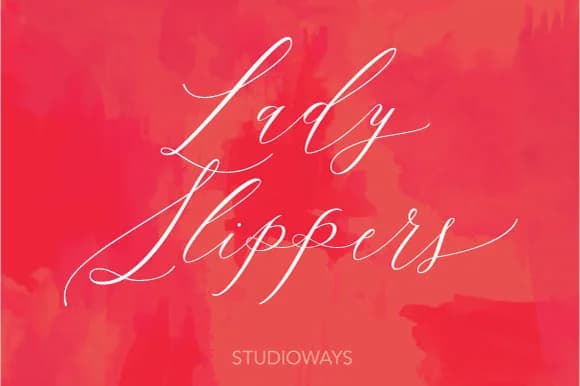
Lady Slippers Basic by Studioways is a flowing contemporary script that brings graceful, handwritten elegance to digital projects. This refined iteration of the full Lady Slippers family maintains the signature flowing letterforms while offering a streamlined weight that works beautifully across varied applications. The balanced composition between modern sensibility and romantic flourish makes it ideally suited for wedding invitation suites, custom greeting cards, luxury product packaging, and personalized event stationery.
Beyond special occasions, Lady Slippers Basic shines across everyday professional work where script sophistication matters. The font's consistent rhythm creates readable passages even at smaller scales, while its elegant stroke weight prevents the heaviness that plagues many script faces in demanding professional applications. Boutique brand identities and fashion lookbook headers benefit from this typeface's poised, contemporary presence. Whether you're designing monogram badges, personalized gift labels, or Instagram graphics, the script adapts gracefully without sacrificing its inherent charm or legibility.
The streamlined Basic version offers the same romantic sensibility as its parent design but with a lighter, more refined presence, making it particularly effective for projects requiring visual sophistication without overwhelming the eye. The consistent letterforms and balanced spacing ensure reliable performance across screen and print mediums. Bring this versatile script into your creative work by getting Lady Slippers Basic on Creative Fabrica.
Lady Slippers Basic Font is a script font that shines as a display or heading face. Pair it with a clean sans-serif or serif font for body text β the contrast creates a clear hierarchy while the two styles stay balanced and easy to read.